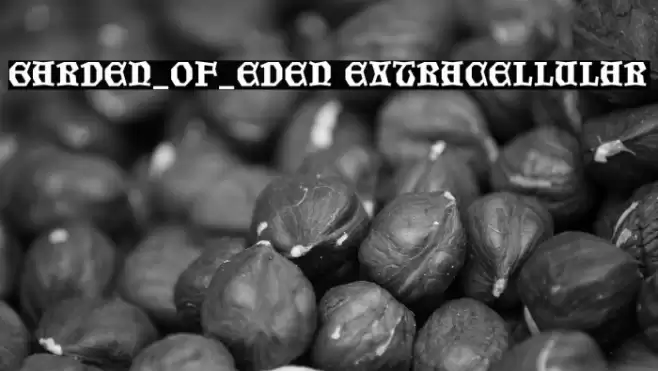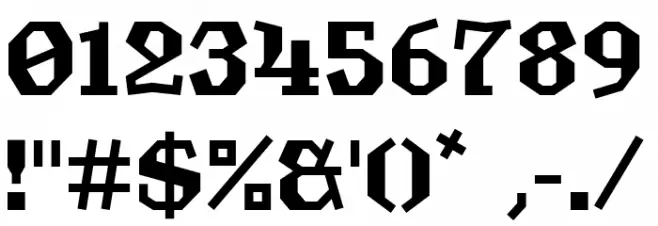
Garden_of_Eden Extracellular Font
Garden_of_Eden Extracellular Description
This font features a bold, angular design with a distinct Gothic influence, characterized by sharp edges and a strong presence. The uppercase letters are particularly striking, with a medieval flair that gives them a commanding appearance. The lowercase letters maintain this aesthetic, ensuring consistency throughout the typeface. Numbers and special characters are equally bold, making them stand out in any design. The overall style is decorative, making it suitable for projects that require a dramatic and eye-catching look. The font's unique style makes it ideal for use in headlines, posters, and branding that seeks to convey a sense of strength and tradition.
A bold, Gothic-inspired font with sharp, angular lines and a decorative style from Regular fonts.
- Font: Garden_of_Eden Extracellular
- Proposed Projects: Ideal for use in branding, posters, headlines, and any design that requires a dramatic, eye-catching font.